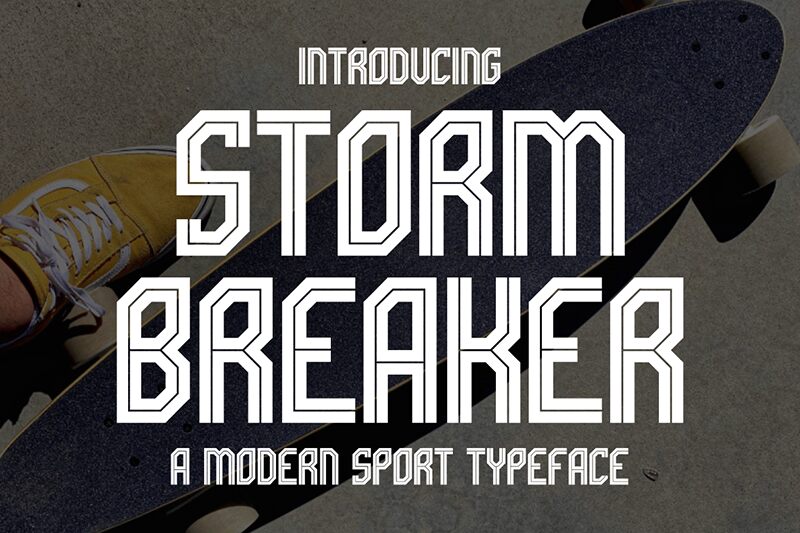
STORM BREAKER
Storm Breaker font by Gilang Ternadho of Maikohatta is a free techno display font condensed in width with an industrial aesthetic that appears machine-like and robotic. It features bold, geometric lines with a futuristic flair reminiscent of sci-fi movie scenes. Thin spirals and lengthy structures offer an instant feel of strength and sturdiness suitable for engaging the reader.
The artistic typeface can be used for movie posters, memorable logo designs, video game designs, banners, videogame or sports teams’ jersey numbers, and comic book covers. It also works for website headers, app interfaces or UX design components in technology-themed software/ websites.